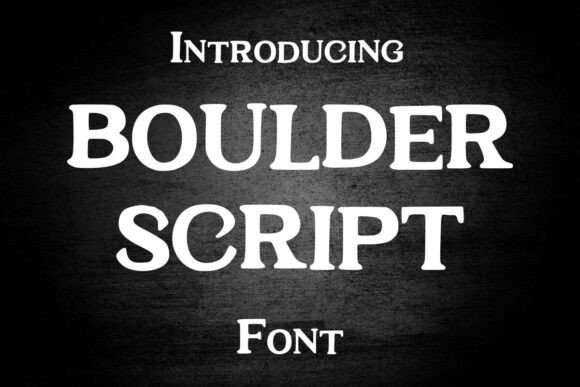
Boulder Script Font: A Bold and Versatile Typeface
Boulder Script is a bold and sturdy typeface that blends classic serif elements with a touch of playful curves. The font’s strong presence is softened by occasional whimsical details, giving it a versatile charm suitable for everything from branding and headlines to creative posters and eye-catching logos. Its balance of structure and personality makes it ideal for designs that demand both impact and character.
The Characteristics of Boulder Script Font
Boulder Script Font is a unique and eye-catching typeface that boasts a range of distinctive characteristics. Its bold and sturdy structure makes it perfect for creating headlines, titles, and other display text, while its playful curves and whimsical details add a touch of personality and charm.
One of the standout features of Boulder Script Font is its blend of classic serif elements with modern playfulness. The font’s serif elements provide a sense of tradition and stability, while its playful curves and flourishes add a touch of creativity and whimsy.
The font’s strong presence is also softened by its occasional whimsical details, which give it a versatile charm that is suitable for a wide range of design applications. Whether you’re creating a bold and eye-catching logo or a stylish and sophisticated brand identity, Boulder Script Font is the perfect choice.
The Versatility of Boulder Script Font
Boulder Script Font is an incredibly versatile typeface that can be used in a wide range of design applications. Its bold and sturdy structure makes it perfect for creating headlines and titles, while its playful curves and whimsical details add a touch of personality and charm to any design.
The font is ideal for use in branding and advertising, where its strong presence and playful charm can help to grab attention and create a lasting impression. It’s also perfect for use in posters, flyers, and other creative materials, where its bold and eye-catching design can help to draw attention and communicate a message.
In addition to its use in print design, Boulder Script Font is also suitable for use in digital applications, such as websites and social media graphics. Its bold and sturdy structure makes it easy to read, even on small screens, while its playful curves and whimsical details add a touch of personality and charm to any digital design.
The Benefits of Using Boulder Script Font
There are many benefits to using Boulder Script Font in your designs. Here are just a few:
- Unique and eye-catching design: Boulder Script Font boasts a unique and eye-catching design that is sure to grab attention and create a lasting impression.
- Versatile charm: The font’s blend of classic serif elements with playful curves and whimsical details gives it a versatile charm that is suitable for a wide range of design applications.
- Strong presence: The font’s bold and sturdy structure makes it perfect for creating headlines and titles that demand attention.
- Playful personality: The font’s playful curves and whimsical details add a touch of personality and charm to any design.
How to Use Boulder Script Font Effectively
To get the most out of Boulder Script Font, it’s essential to use it effectively in your designs. Here are a few tips:
- Use it sparingly: While Boulder Script Font is a beautiful and eye-catching typeface, it’s essential to use it sparingly to avoid overwhelming the reader.
- Pair it with complementary fonts: Boulder Script Font pairs well with a range of complementary fonts, including sans-serif fonts and script fonts.
- Experiment with different sizes and colors: To add visual interest and create a lasting impression, experiment with different sizes and colors of Boulder Script Font.
Boulder Script Font is a bold and versatile typeface that blends classic serif elements with a touch of playful curves. Its strong presence is softened by occasional whimsical details, giving it a versatile charm suitable for everything from branding and headlines to creative posters and eye-catching logos. With its unique and eye-catching design, versatile charm, strong presence, and playful personality, Boulder Script Font is the perfect choice for designers who want to create bold and effective designs that demand attention.